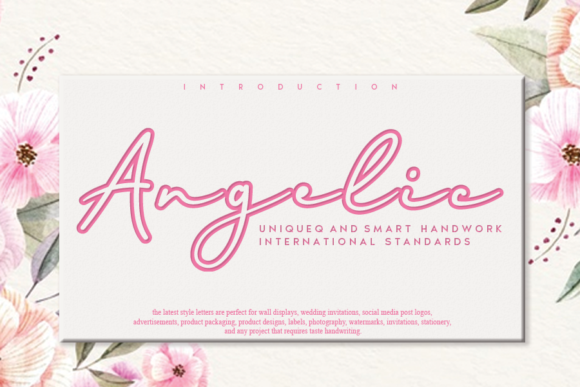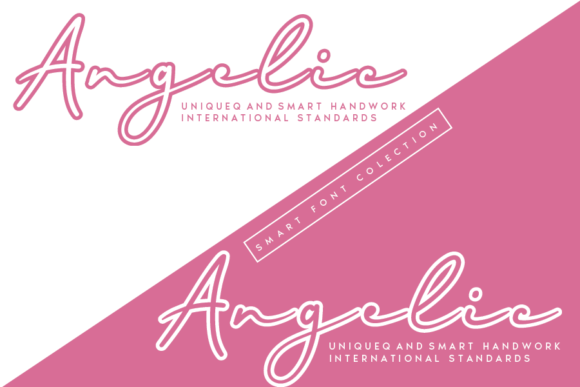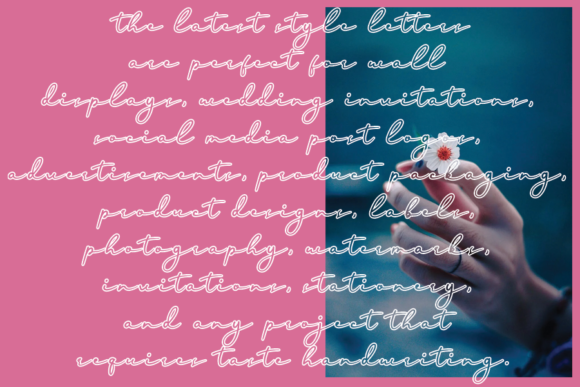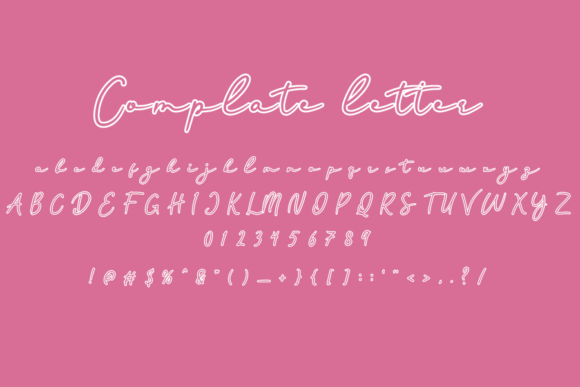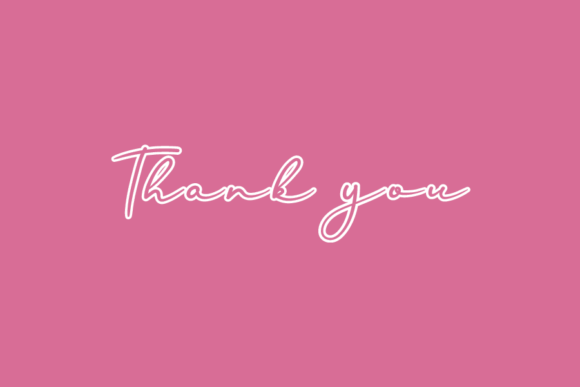
Angelic Font
About Angelic Font
Angelic is a versatile and captivating font that draws inspiration from classic typography while adding its own unique touch. Its elegant and artistic design makes it an excellent choice for various design projects. Here are some ways you can use Angelic to create stunning artworks and elevate your creative ideas:
1. Social Media Graphics: Use Angelic for your Instagram, Facebook, or Twitter posts to create visually appealing and attention-grabbing graphics. Its classic yet artistic style will enhance your social media presence.
2. Calligraphy Scripts: Angelic is perfect for calligraphy projects, such as custom prints, greeting cards, and invitations. Its sophisticated letterforms will add a touch of elegance to your DIY creations.
3. Branding and Logo Design: Create professional and memorable logos using Angelic’s refined typography. It brings a sense of timelessness and sophistication to your brand identity.
4. Website Headers: Use Angelic for website headers and titles to give your site a sophisticated and artistic look that captures visitors’ attention.
5. DIY Craft Projects: Whether it’s scrapbooking, journaling, or creating personalized gifts, Angelic’s unique style will add a touch of artistry to your DIY endeavors.
6. Art Prints and Posters: Design beautiful art prints and posters using Angelic to create a visually stunning centerpiece for any room.
7. Invitations and Announcements: From wedding invitations to baby announcements, Angelic will add an elegant and refined touch to your special events.
8. Packaging and Labels: Use Angelic for product packaging and labels to give your products a classic and premium appearance.
9. Magazine and Book Covers: Angelic can be a captivating choice for magazine covers and book titles, creating an eye-catching and artistic design.
10. Typography Art: Experiment with Angelic to create typography art pieces with inspiring quotes or meaningful phrases.
11. Artistic Calligraphy: Use Angelic as a base for artistic calligraphy projects, showcasing the beauty of handcrafted letterforms.
12. Personal Branding: For personal branding, Angelic will add a touch of sophistication to your resume, business cards, or professional website.
13. Event Signage: Create eye-catching event signage using Angelic for a touch of classic elegance.
14. Monograms and Initials: Design personalized monograms or initials using Angelic’s unique letterforms.
15. Certificates and Awards: Use Angelic for certificates and awards to create a sense of prestige and honor.
16. Restaurant Menus: Use Angelic for upscale restaurant menus to convey a sense of sophistication and refinement.
17. Artistic Prints: Turn your illustrations or artwork into artistic prints using Angelic’s classic typography.
18. Flyers and Brochures: Design captivating flyers and brochures using Angelic to draw attention to your message or products.
19. Photography Watermarks: Protect your photography with an artistic watermark using Angelic’s stylish lettering.
20. Personal Stationery: Create personalized stationery sets with your name or initials in Angelic’s elegant style.
Angelic’s blend of classic and unique design elements makes it a powerful font choice for turning your creative ideas into true works of art. Explore its versatility and let its sophisticated typography elevate your design projects to new heights!